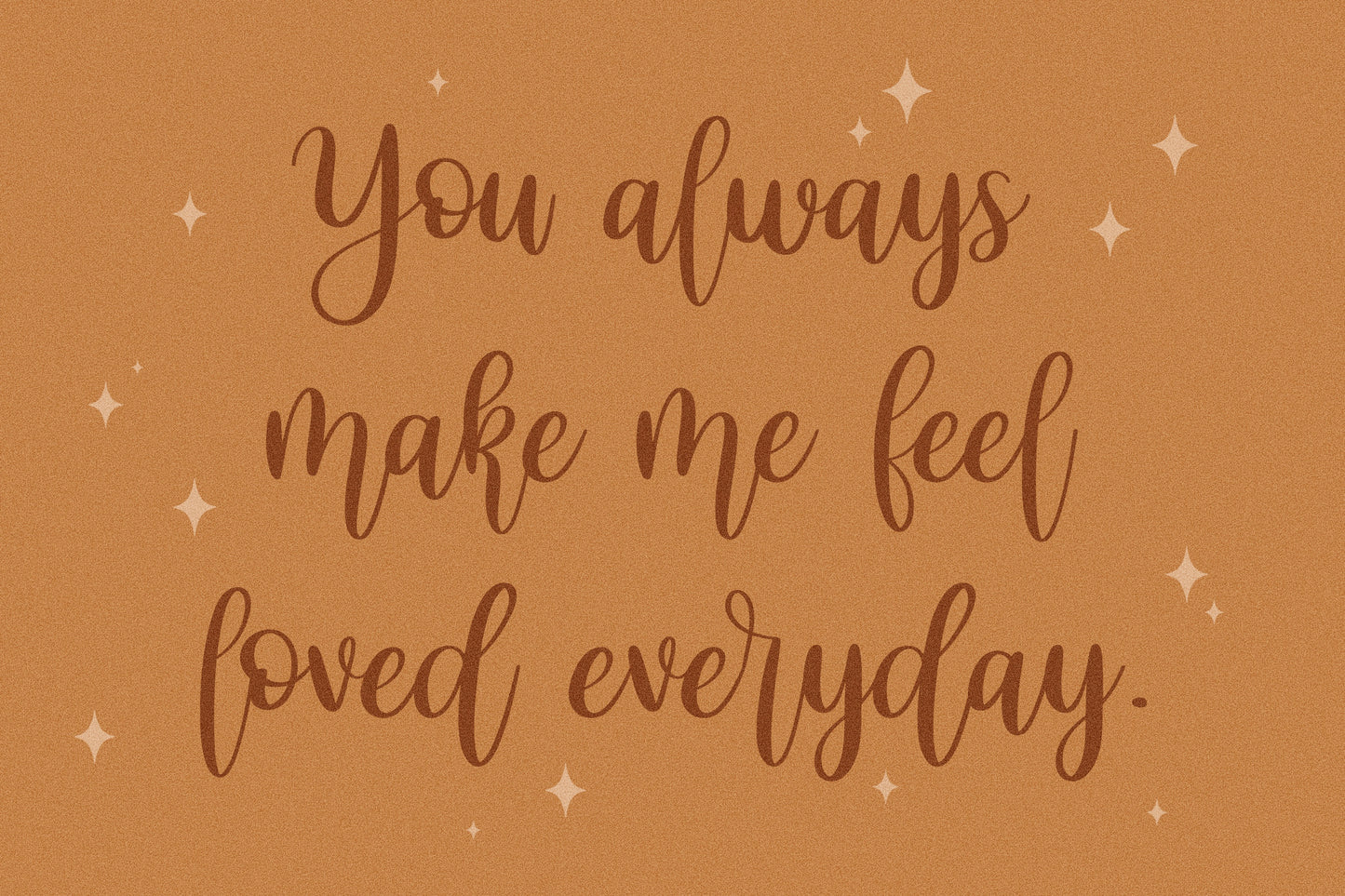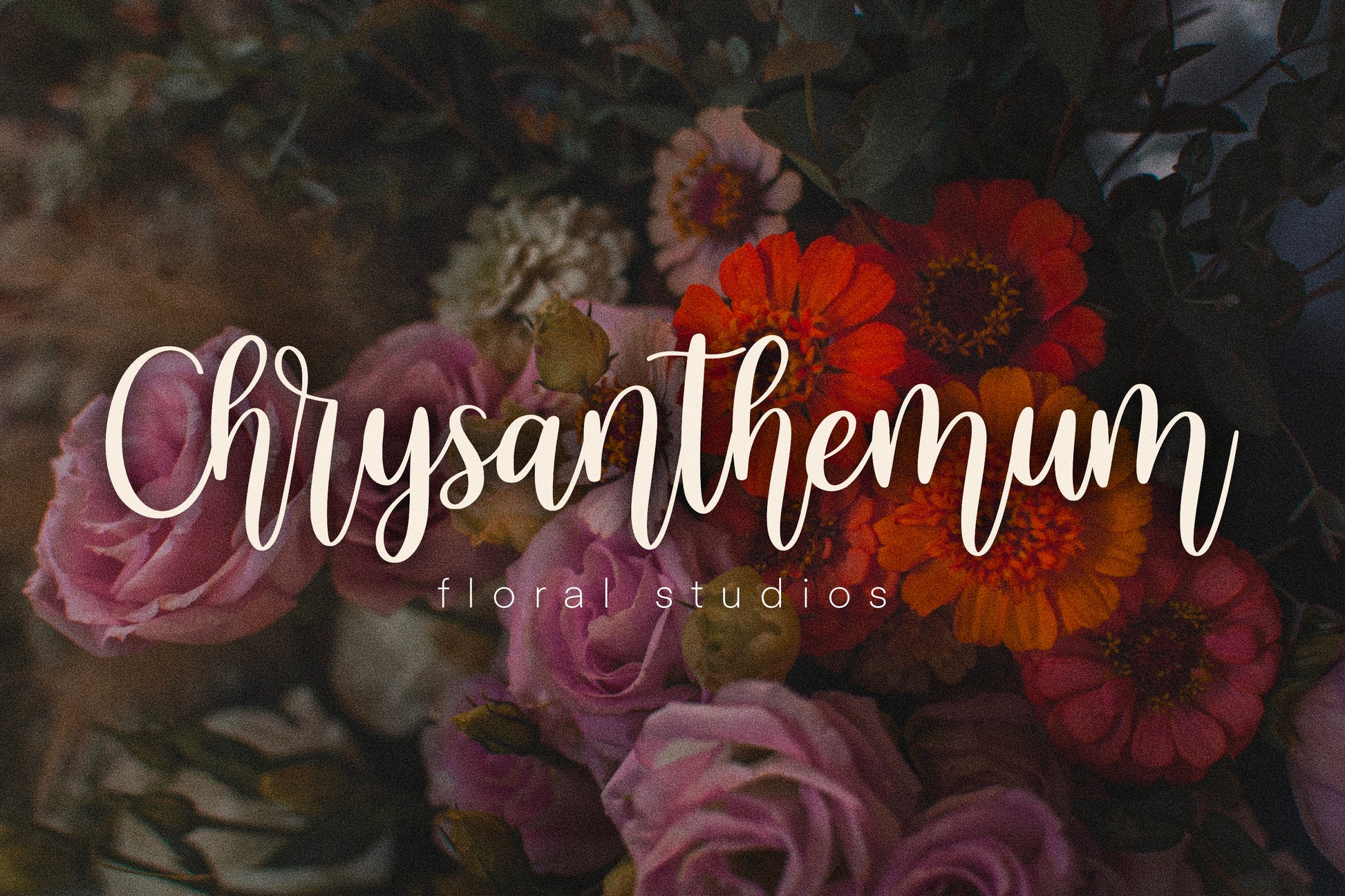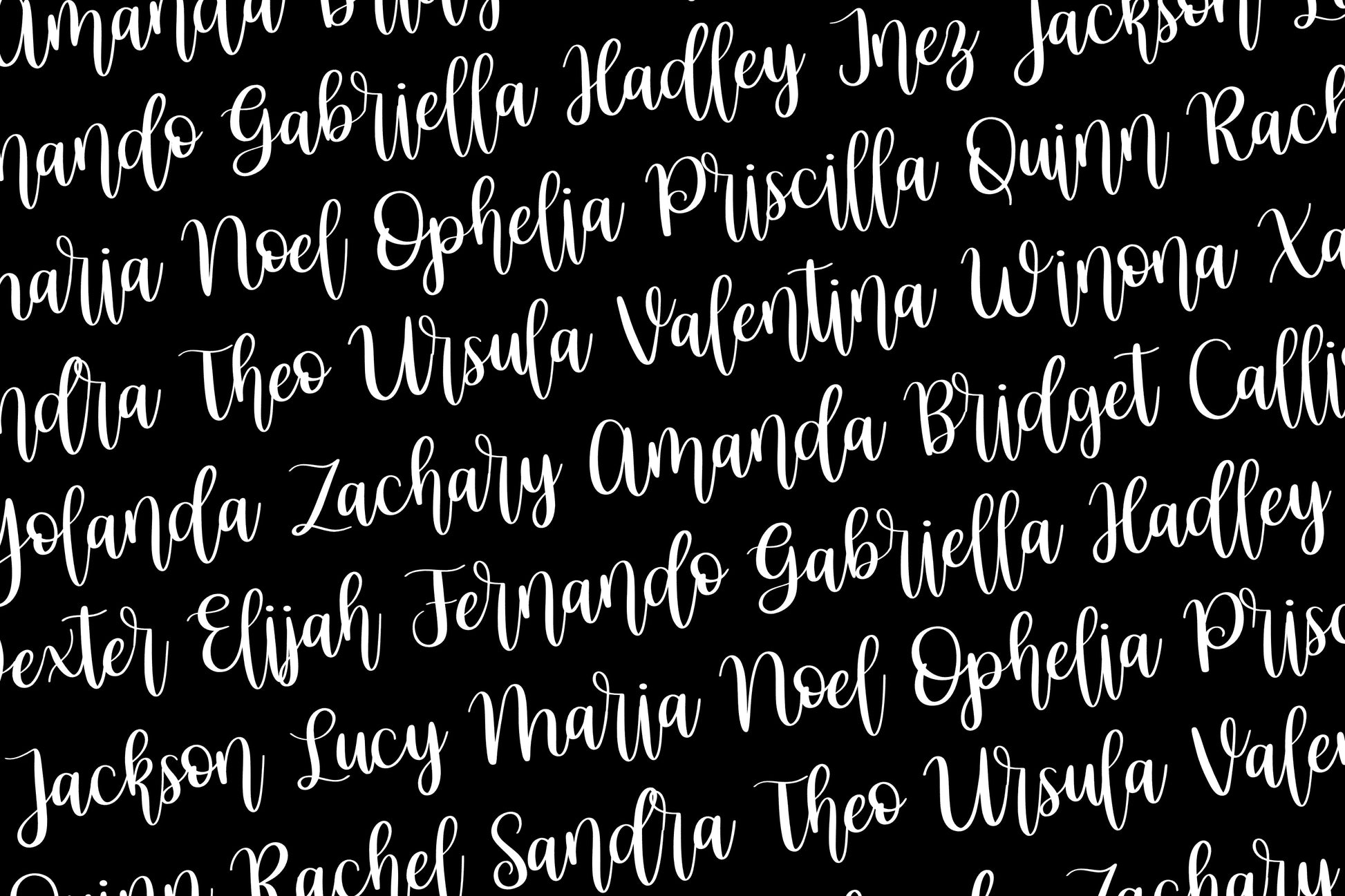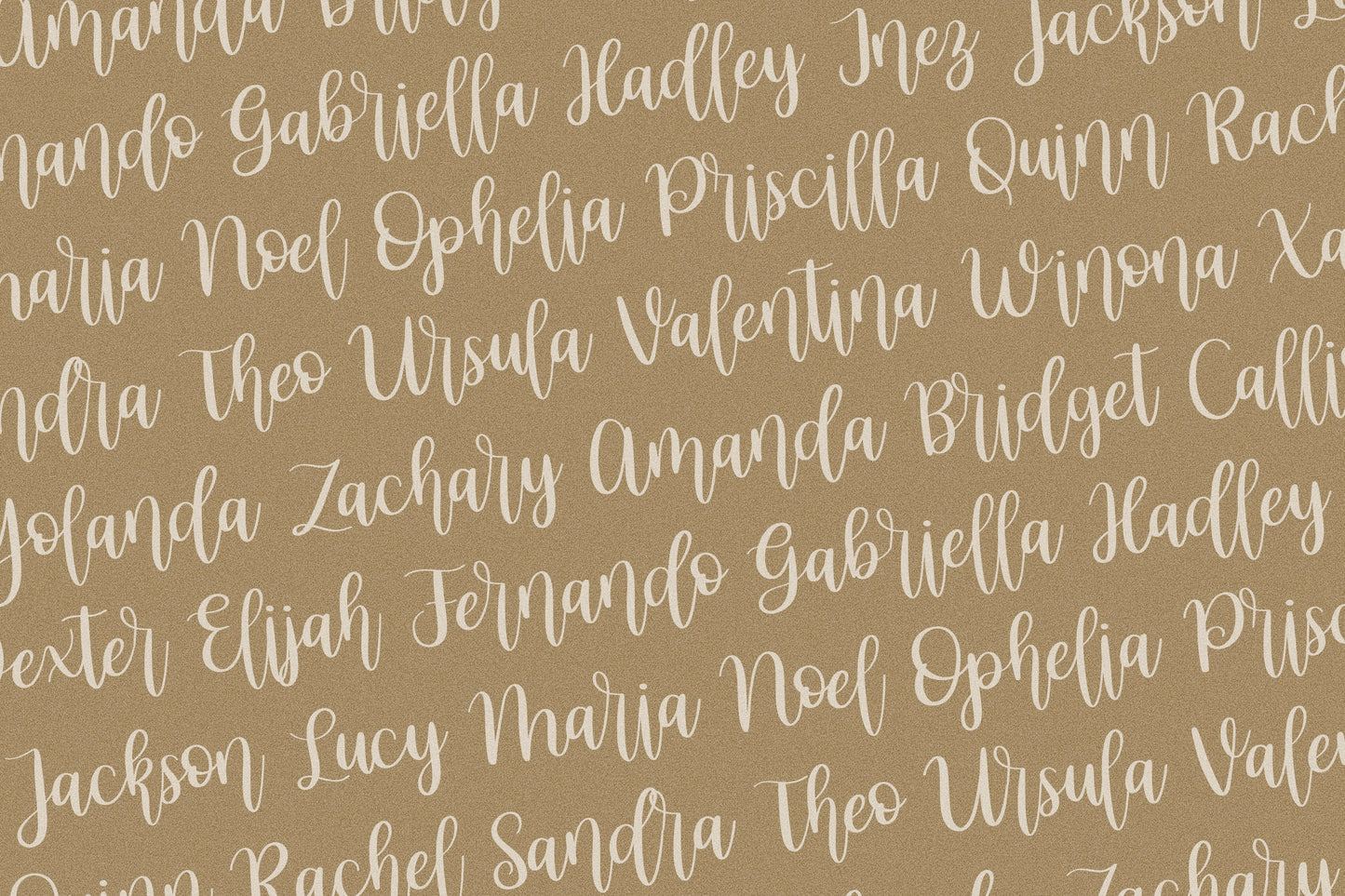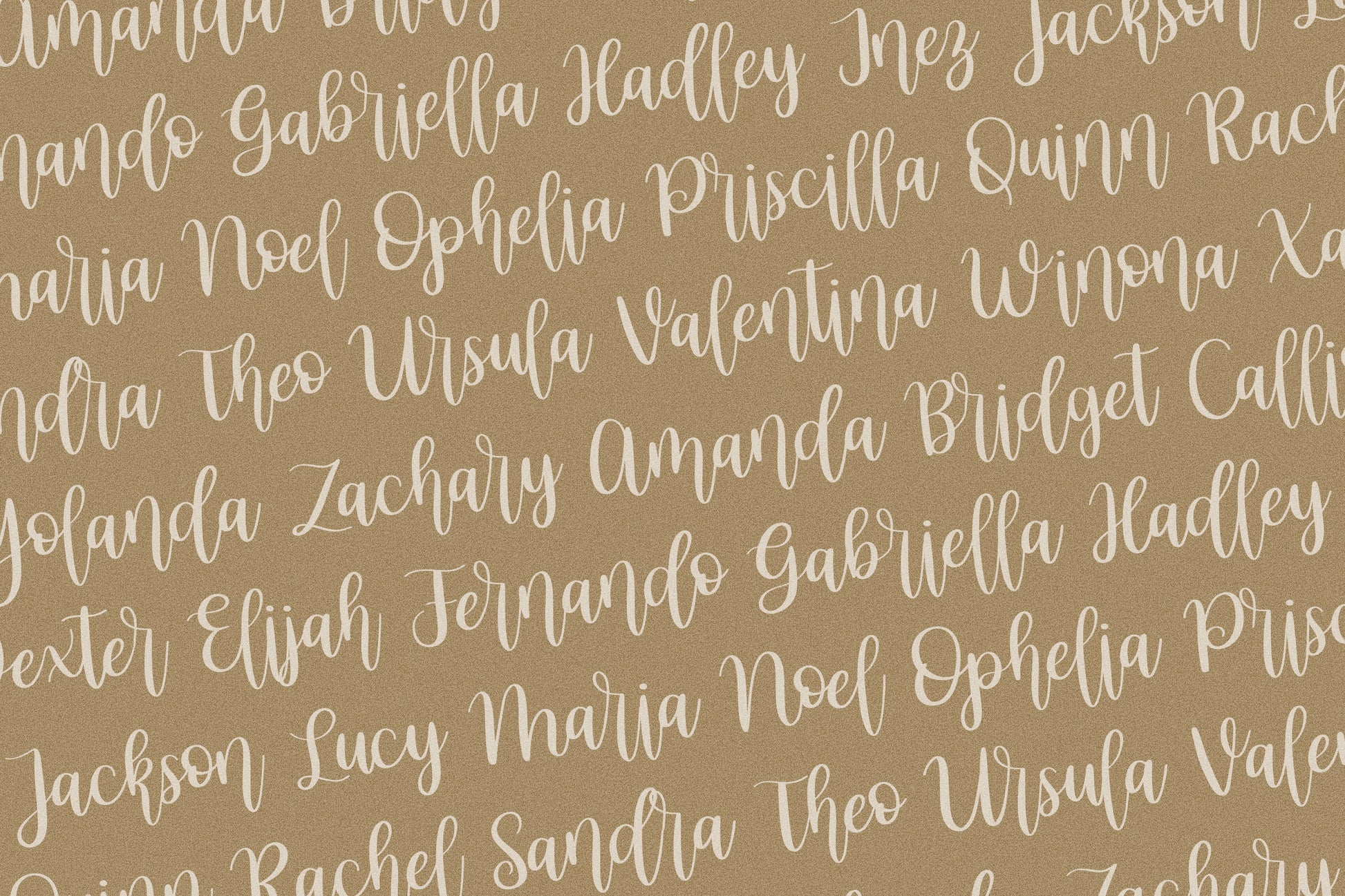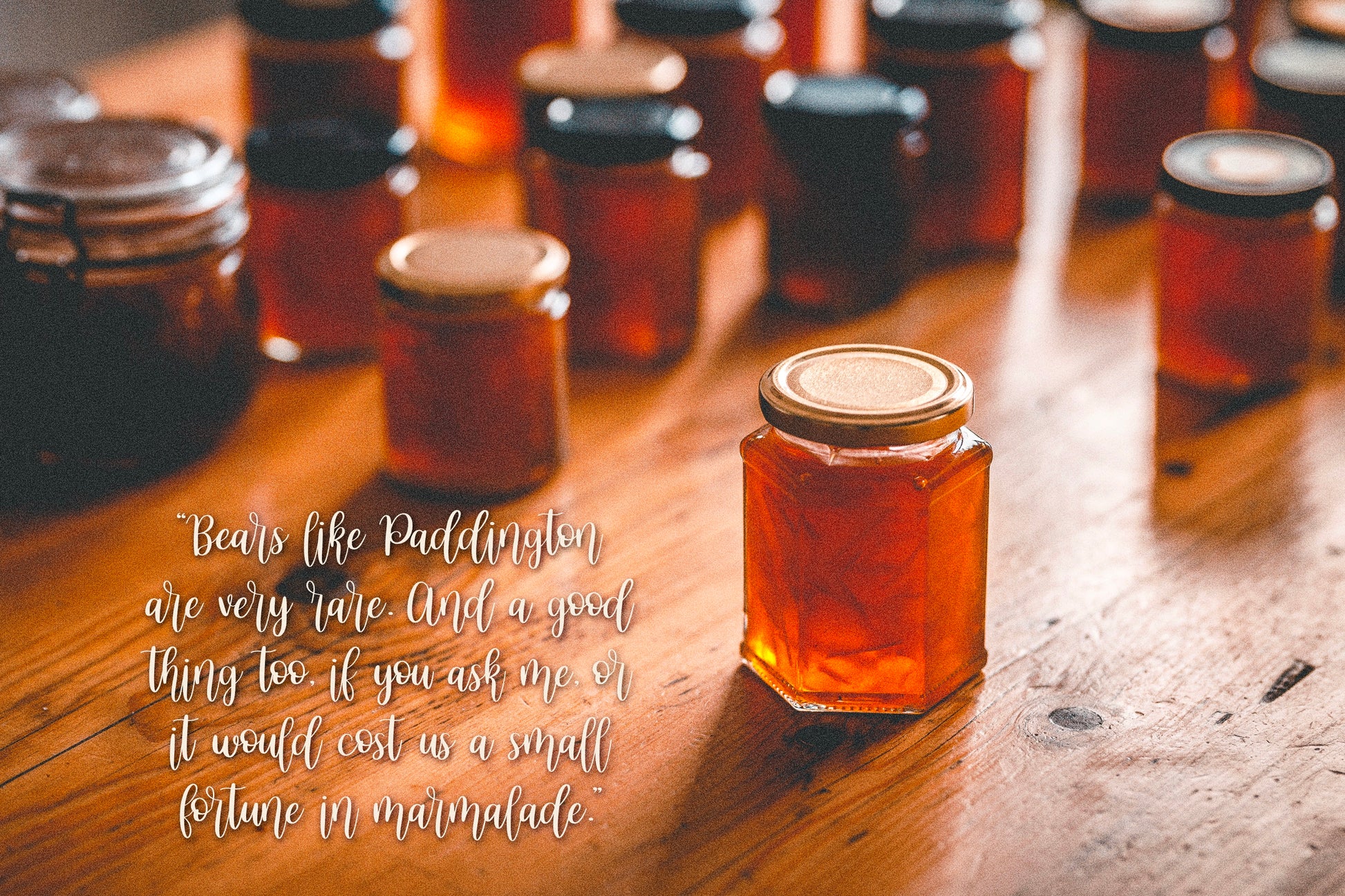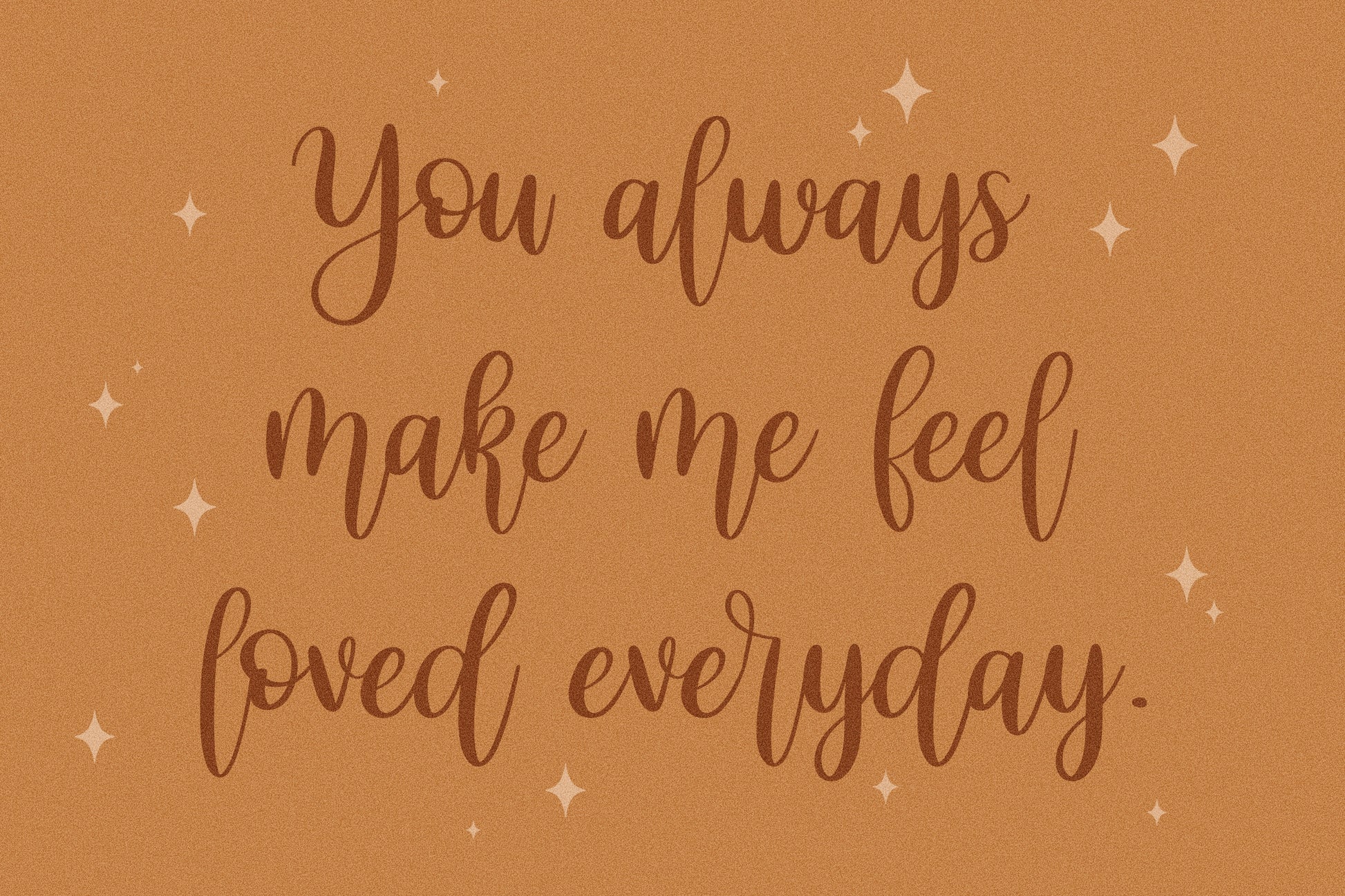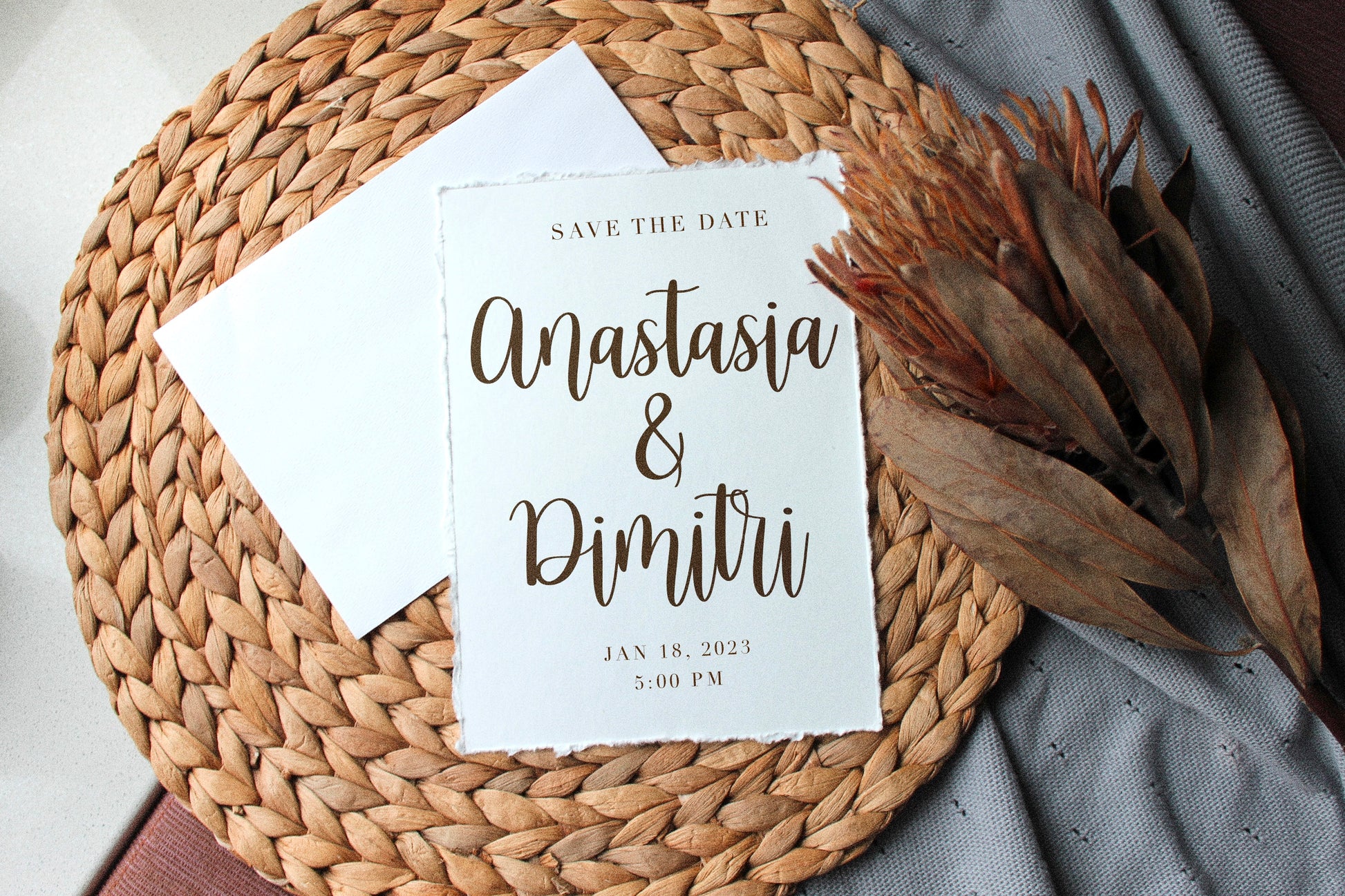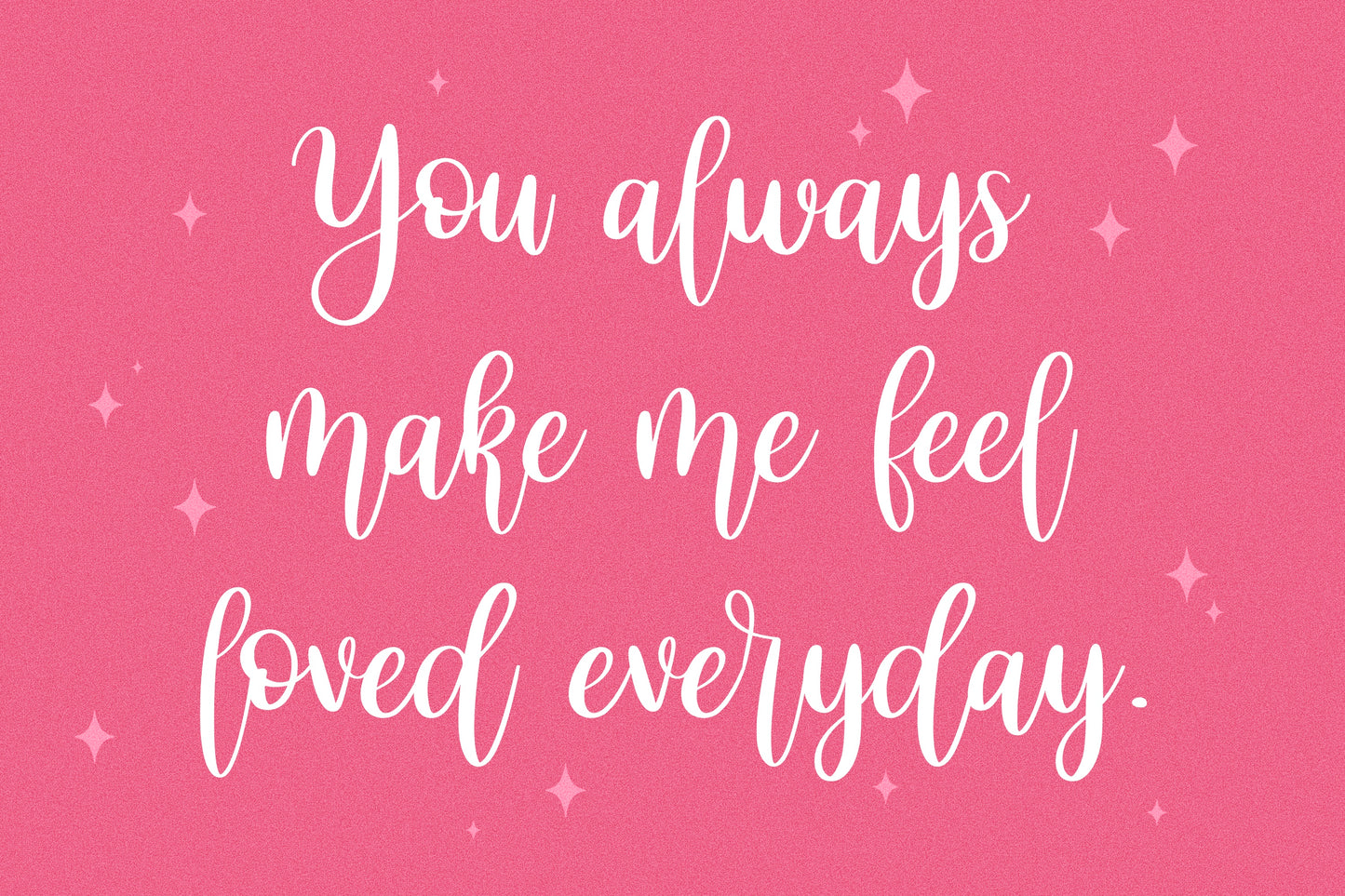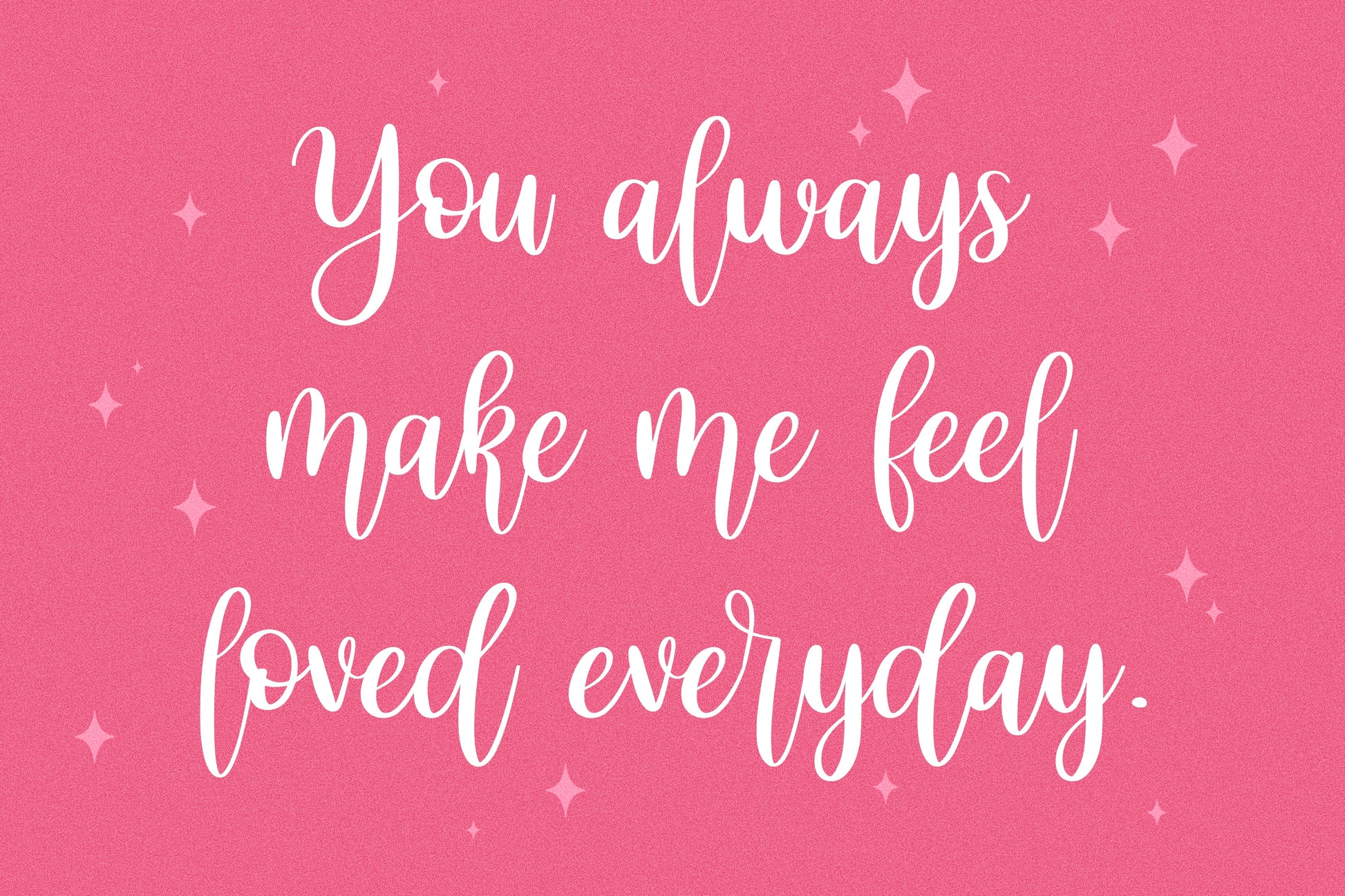
Marmalade Handwritten Font
This is my Marmalade handwritten/hand drawn font. This extra bouncy handwritten script font is perfect for any design. It works great for branding, logos, posters, magazines, quotes, or even tattoo designs!